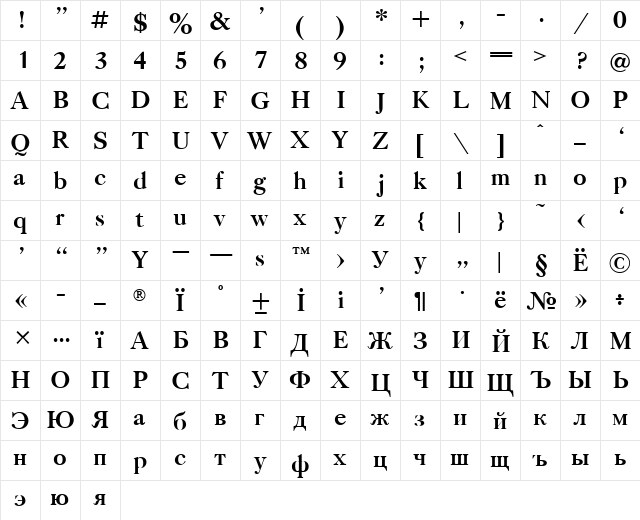
Gazeta Titul Bold
Design Context for Gazeta Titul Typeface
Gazeta Titul offers clean, dependable letterforms without strong stylistic allegiance, making it a practical choice for designers who need flexibility. The heavy weight commands attention and anchors typographic hierarchies.